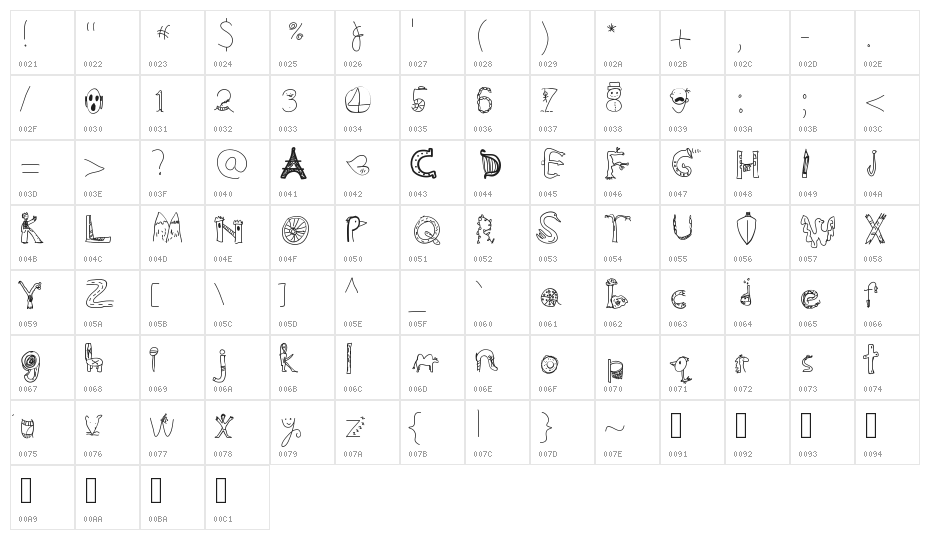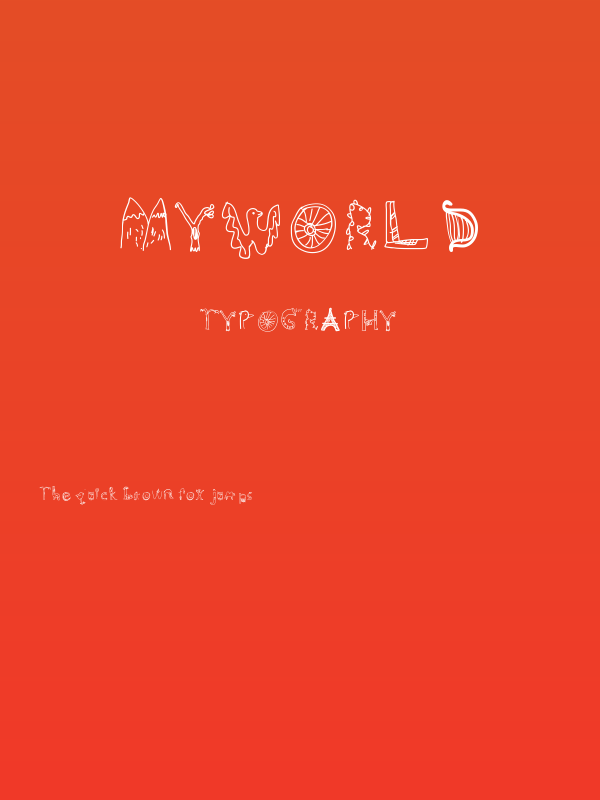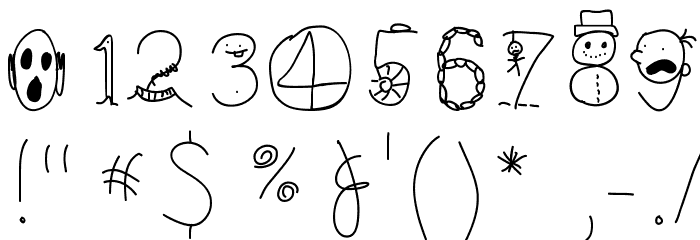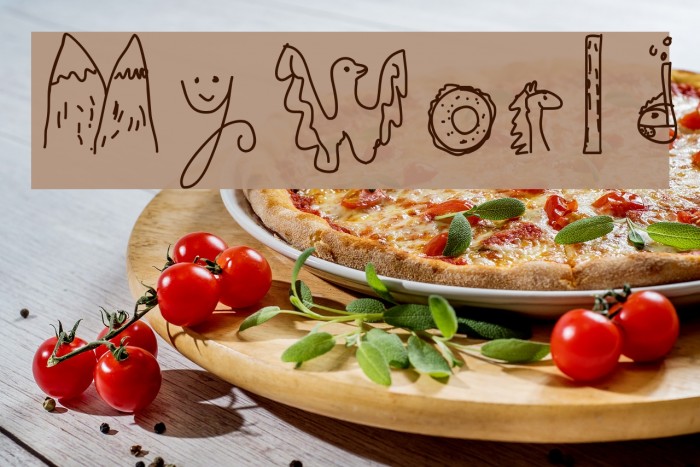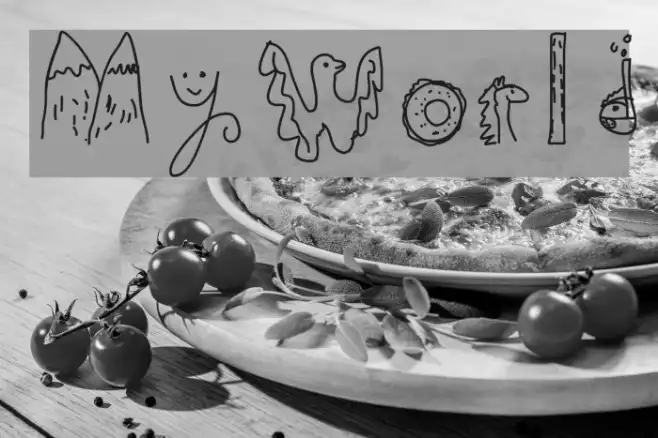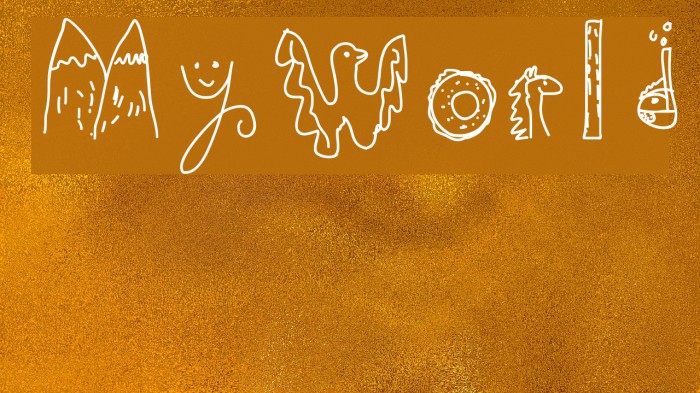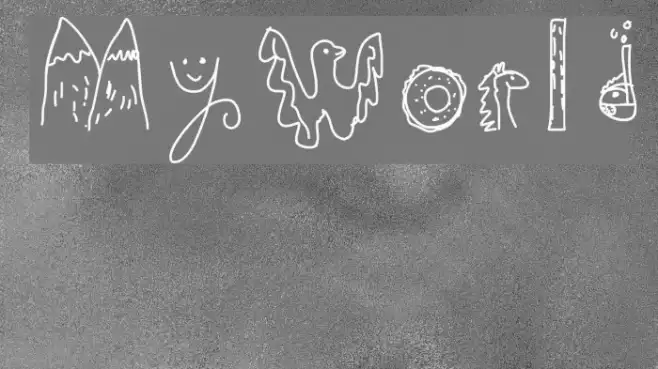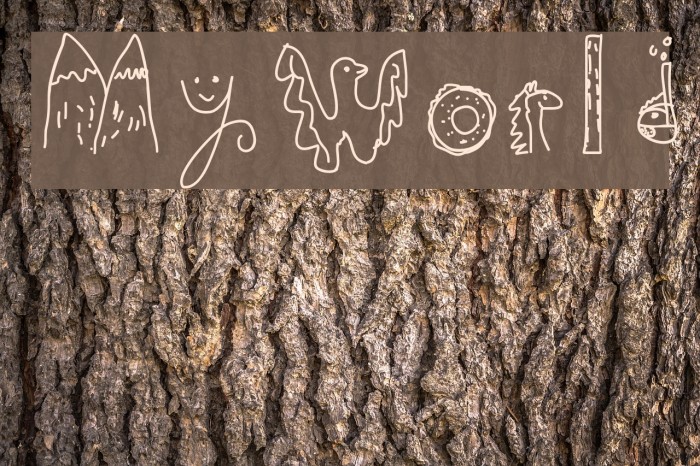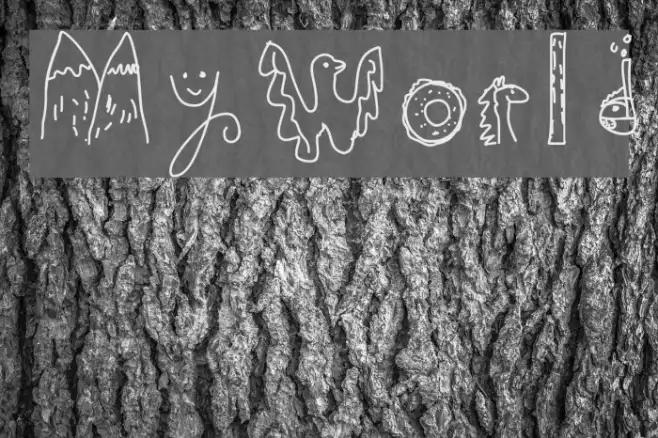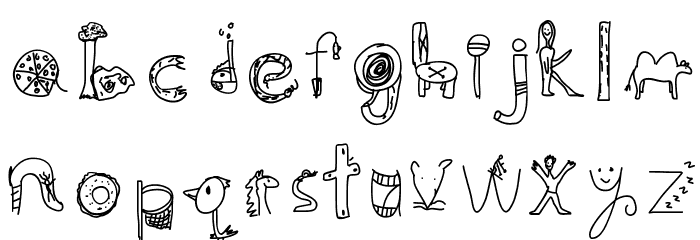
MyWorld Font
MyWorld Description
This whimsical and playful font features a unique and imaginative design for each character, incorporating elements like animals, objects, and abstract shapes. Each letter and number is crafted with a distinct personality, making the font highly decorative and engaging. The uppercase letters are bold and varied, with some resembling animals or incorporating intricate patterns. The lowercase letters continue this playful theme, with quirky and unexpected elements. Numbers are equally creative, with designs that include faces and other imaginative motifs. Special characters maintain the whimsical style, adding to the font's overall charm.
| Proposed Projects | Ideal for children's books, playful branding, creative posters, and whimsical invitations. |